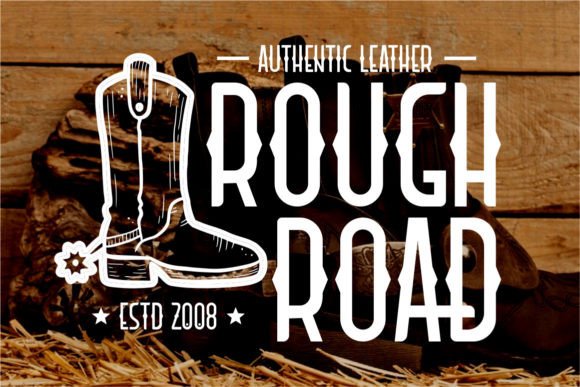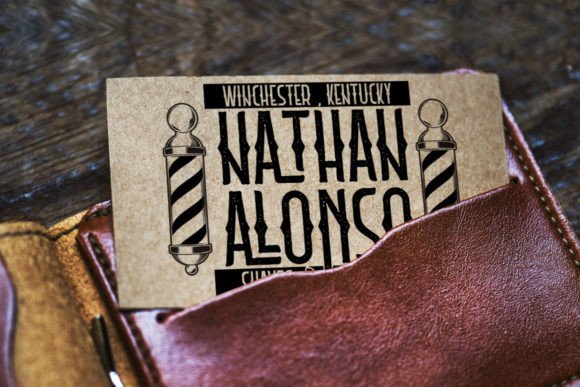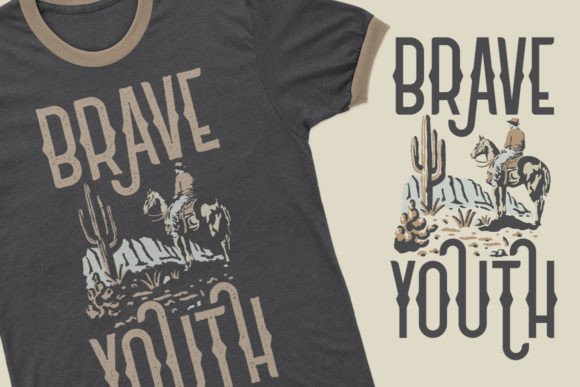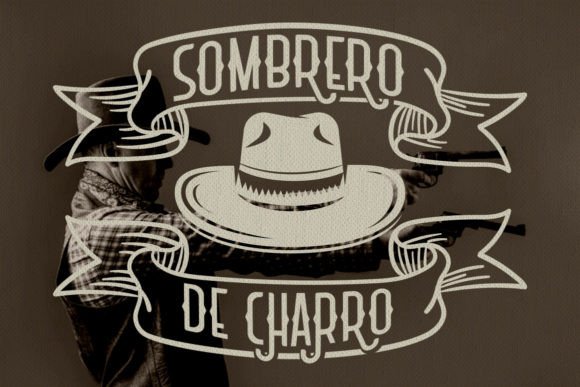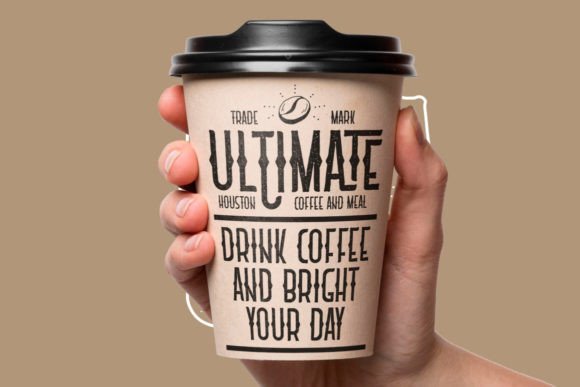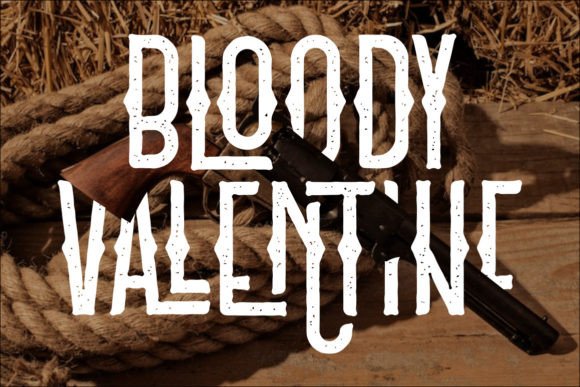
Introduction to Old Spokes Font
As a designer, there’s nothing quite like the thrill of seeing a project come together. You’re pouring your heart and soul into every detail, from the color palette to the typography. And then, it happens – you stumble upon the perfect font. For many of us, that font is the Old Spokes Font. With its vintage charm and high-quality design, it’s a game-changer for any creative project.
Whether you’re working on a logo, a brochure, or a website, the Old Spokes Font is a valuable resource that can elevate your design to the next level. Its transparent background and free download make it a convenient addition to your design toolkit. And with its PUA encoding, you can access all the glyphs and ligatures with ease, giving you the flexibility to get creative.
Key Features of Old Spokes Font
- High-quality design resource ideal for creative projects, offering a unique aesthetic.
- Features a transparent background, allowing for easy integration into different design environments.
- Includes a single font style with multiple weights, providing flexibility for designers to customize their projects.
- Designed with a distressed, vintage feel, adding a touch of nostalgia to any creative project.
- Available in a standard font size, with a resolution of 72 dpi, making it suitable for digital and print projects.
Honest Review: Old Spokes Font
I recently stumbled upon the Old Spokes Font, and I must say it’s been a game-changer for my creative projects. As a designer, I’m always on the lookout for high-quality fonts that can elevate my designs and give them a unique touch.
What works well about the Old Spokes Font is its versatility. It comes in a range of styles, from bold and playful to elegant and sophisticated, making it perfect for a variety of creative projects. I’ve used it for everything from branding and logos to posters and social media graphics.
- ✨ High-quality design with a vintage feel
- ✨ Transparent background, allowing for seamless integration with any design
One limitation of the Old Spokes Font is its limited font sizes and weights. This can make it a bit tricky to work with in certain situations, but overall, it’s a minor issue.
Overall, I’m thoroughly impressed with the Old Spokes Font. It’s a valuable design resource that I’ll be using for all my future creative projects.
How to Use Old Spokes Font
The Old Spokes Font is a high-quality design resource that can be used for a variety of creative projects. Its unique, vintage-inspired style makes it perfect for adding a touch of nostalgia to your designs.
Using Old Spokes Font in Creative Projects
You can use the Old Spokes Font in a variety of creative projects, including:
Tips for Getting the Most Out of Old Spokes Font
To get the most out of the Old Spokes Font, be sure to:
- Use it on a transparent background to create a seamless design.
- Experiment with different font sizes and styles to add depth and interest to your designs.
- Pair the font with other vintage-inspired design elements to create a cohesive look.
Alternatives to Old Spokes Font
Noto Sans is a high-quality, free font designed for a wide range of languages and scripts. It’s ideal for use in creative projects that require a clear and readable font. When to use: body text, headings, and titles. Compared to Old Spokes Font, Noto Sans offers a more modern and streamlined look, with a wider range of language support.
Great Vibes is a free, elegant script font perfect for adding a touch of sophistication to your design. It features a transparent background and is ideal for use in titles, headings, and other creative elements. When to use: titles, headings, and creative elements. Compared to Old Spokes Font, Great Vibes has a more refined and polished look, making it suitable for high-end design projects.
Playfair Display is a luxurious, high-quality serif font designed for use in titles, headings, and other creative elements. It features a elegant and refined look, making it perfect for use in design projects that require a touch of sophistication. When to use: titles, headings, and creative elements. Compared to Old Spokes Font, Playfair Display has a more ornate and luxurious look, making it suitable for high-end design projects.
Does the Old Spokes Font have a transparent background?
No, the Old Spokes Font does not have a transparent background. It is a solid, high-quality font designed for use on a variety of backgrounds. If you need a font with a transparent background, you may want to consider a different design resource.